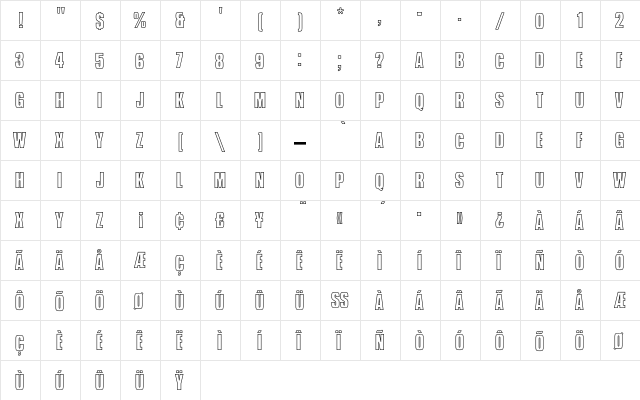
CompactaEF BoldOutline
Design Context for CompactaEF Typeface
CompactaEF is built around its visual character rather than neutral utility — its distinctive forms are designed to make an impression at display sizes. The heavy weight commands attention and anchors typographic hierarchies.
Font Pairing: Pair with a clean neutral sans-serif for body copy to let CompactaEF's character lead without overwhelming the composition.
Pro Tip: Treat CompactaEF as the centrepiece of your typographic hierarchy. One strong heading set in a decorative face can carry an entire layout.